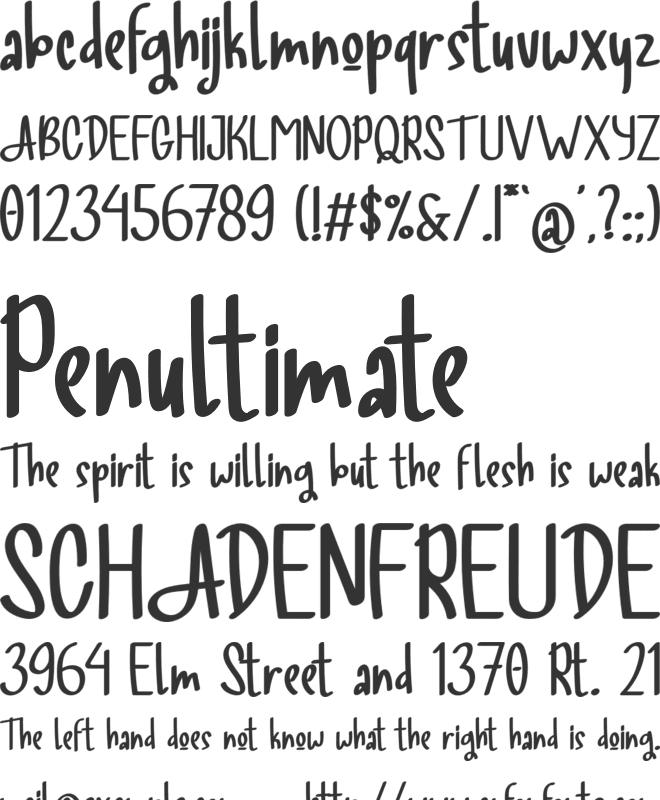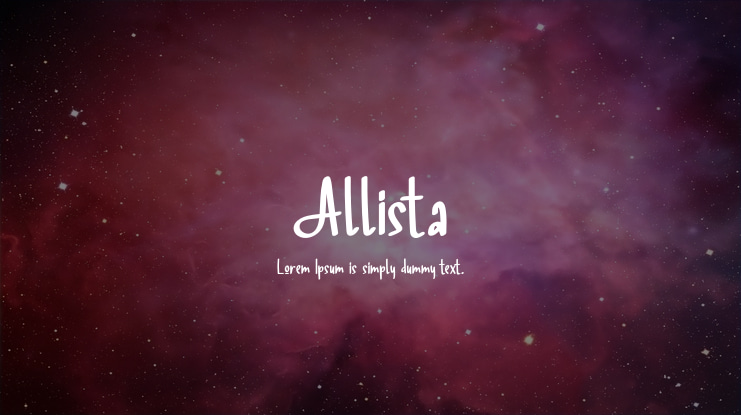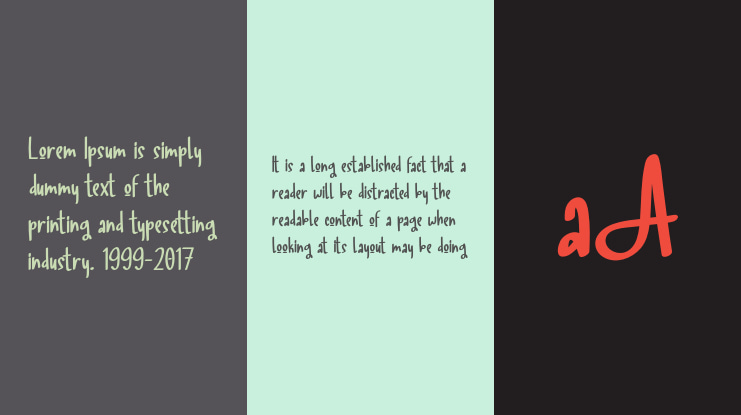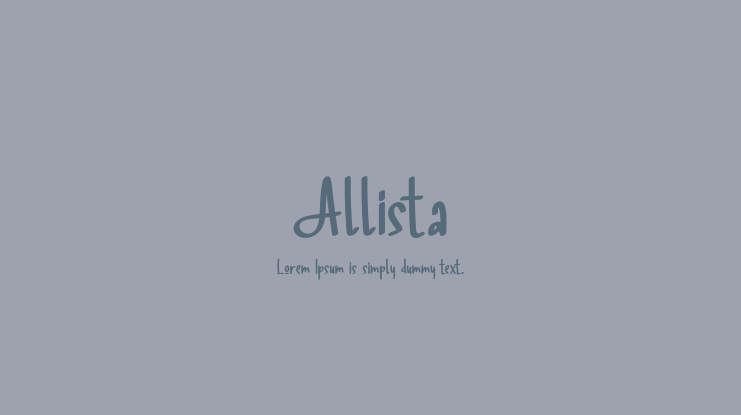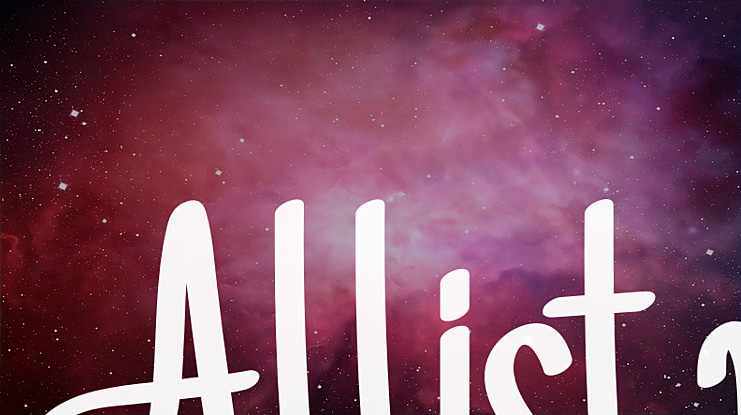
Allista Font
typefactory
Allista is a fancy handwritten font, carefully handcrafted to become a true favorite.This font will look outstanding in any context, whether it’s being used on busy backgrounds or as a standalone headline!Full Version Download Here :https://typefactory.co/product/allista-fancy-handwritten-font/https://www.creativefabrica.com/product/allista/ref/501262/